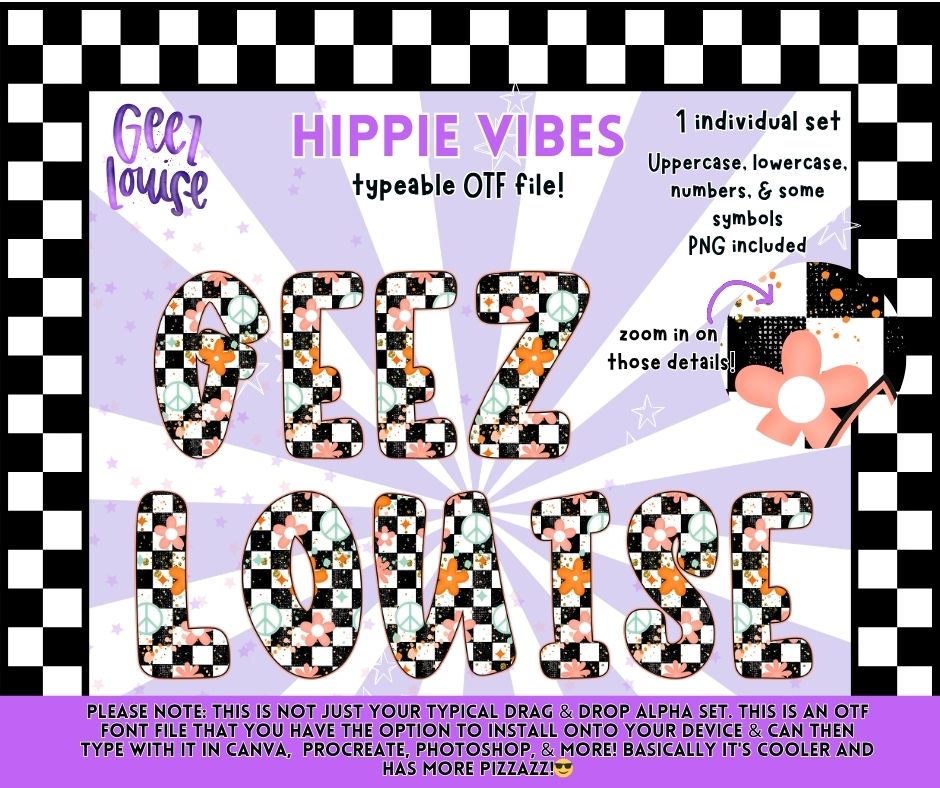
Hippie Vibes OTF Font + PNG Alpha Set | Retro Floral Checkerboard Typeface | Typeable Font for Canva & Procreate
Peace, love, and bold designs ✌️🌼
Hippie Vibes is a playful, retro-inspired OTF font packed with funky florals, checkerboard details, and groovy energy. It’s the perfect throwback vibe with a modern twist—made to stand out in every design you create.
It’s bright, nostalgic, and unapologetically fun—like a little 70s road trip baked into a font 🚐✨